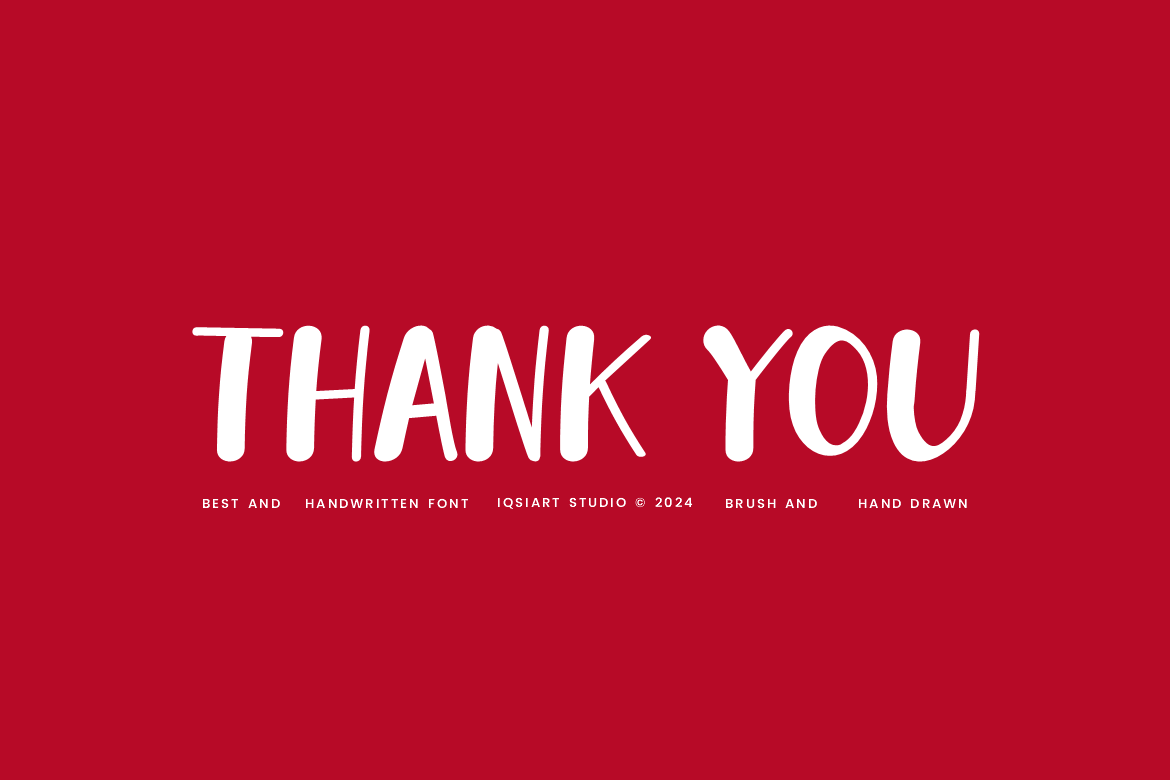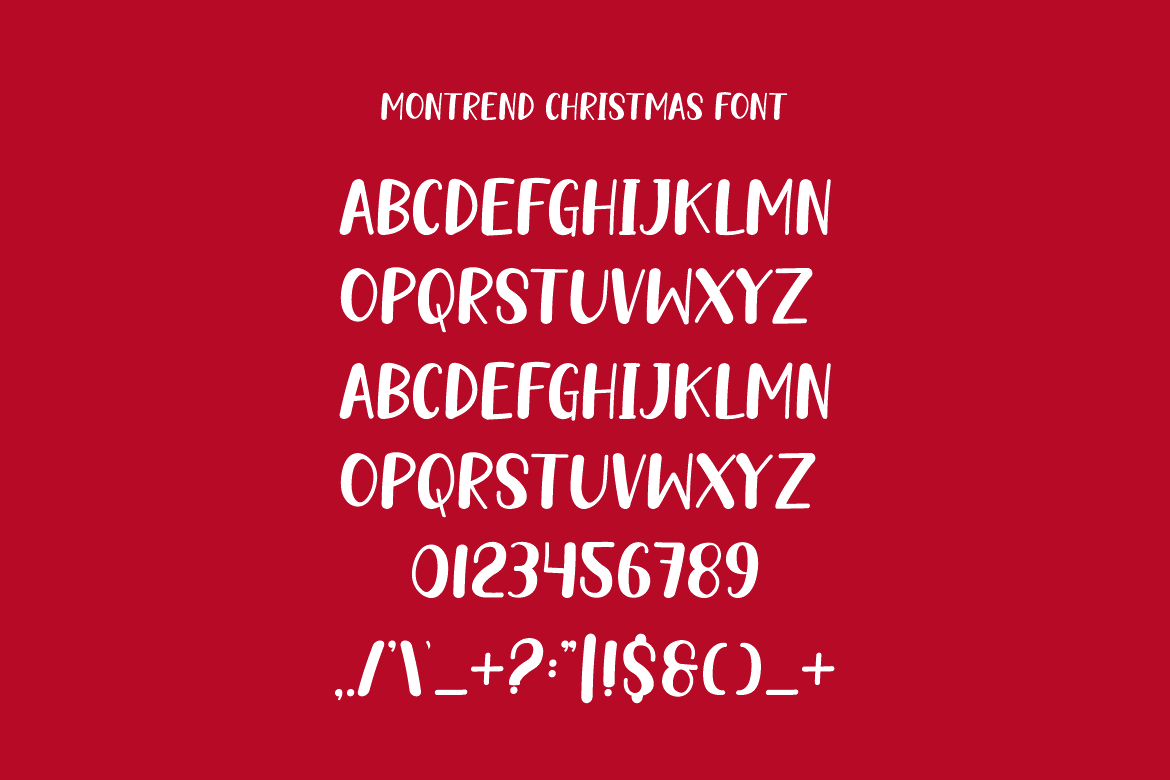
Montrend Christmas Font
Montrend Christmas Font is a handwritten and authentic display font. This font can be used for your various needs. We provide various themes and font styles. visit our profile to get a wide variety of themes and different font styles you need.